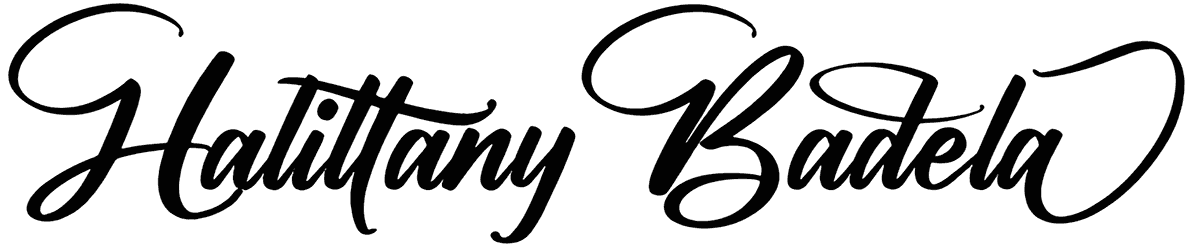
Halittany Badela Font
Try out Halittany Badela if you’re searching for an endearing calligraphy font. It has two different styles, which makes it useful for logos, blog headlines, branding, posters, and other things.